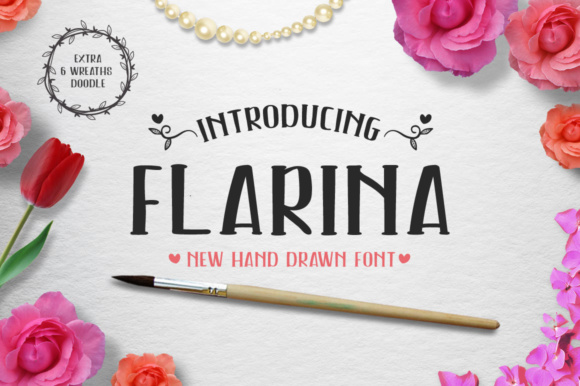
Flarina Font
About Flarina Font
Flarina is a gorgeous, all caps hand drawn font that is perfect for displays and more! This is a great font that is perfect for crafting, and comes with gorgeous bonus illustrations!